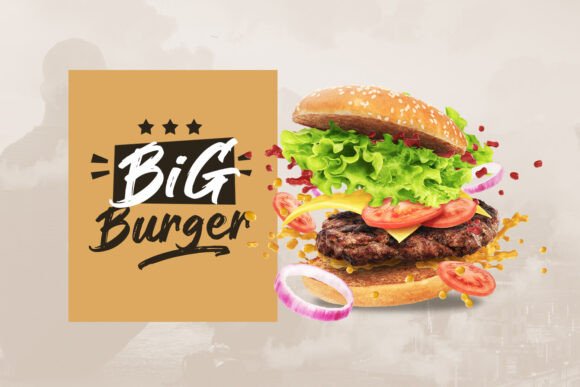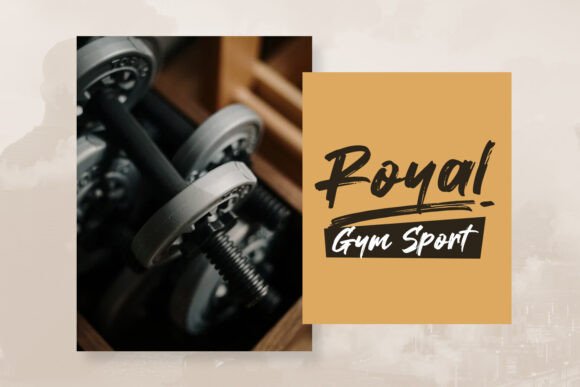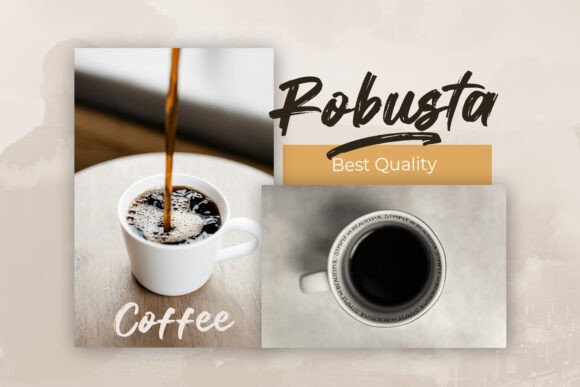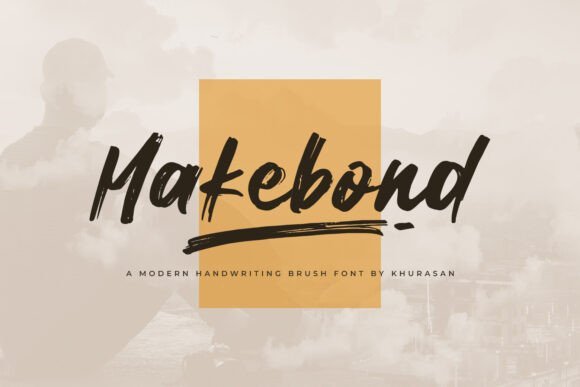
Introduction to Makebond Font
Makebond is a modern brush font perfect for posters, logos, magazines, book covers, banners, and many more.
Get this quirky display font, and use it to create lovely designs It can easily be matched to an incredibly large set of projects, so add it to your creative ideas and notice how it makes them stand out.